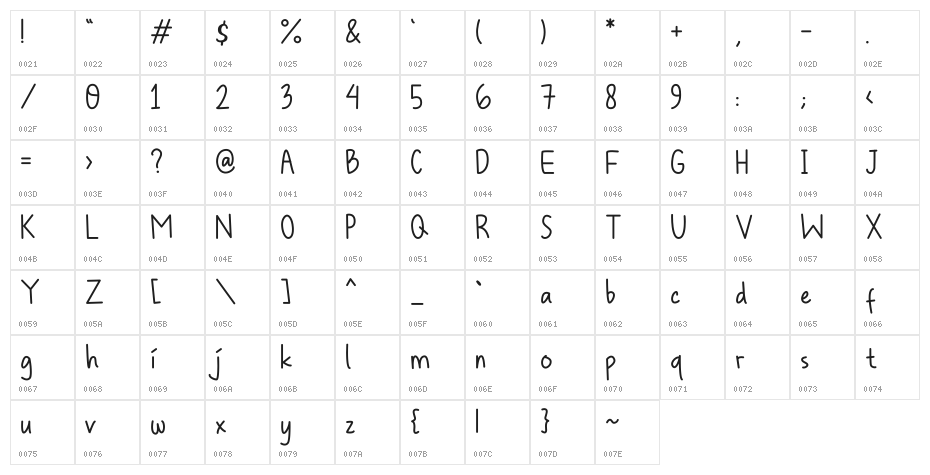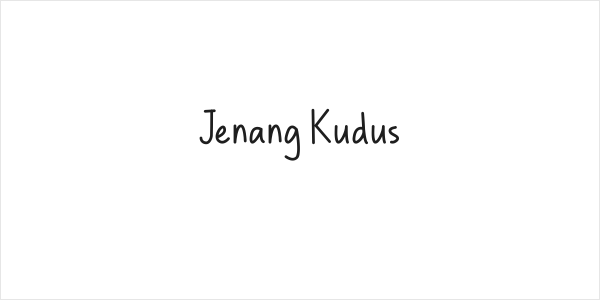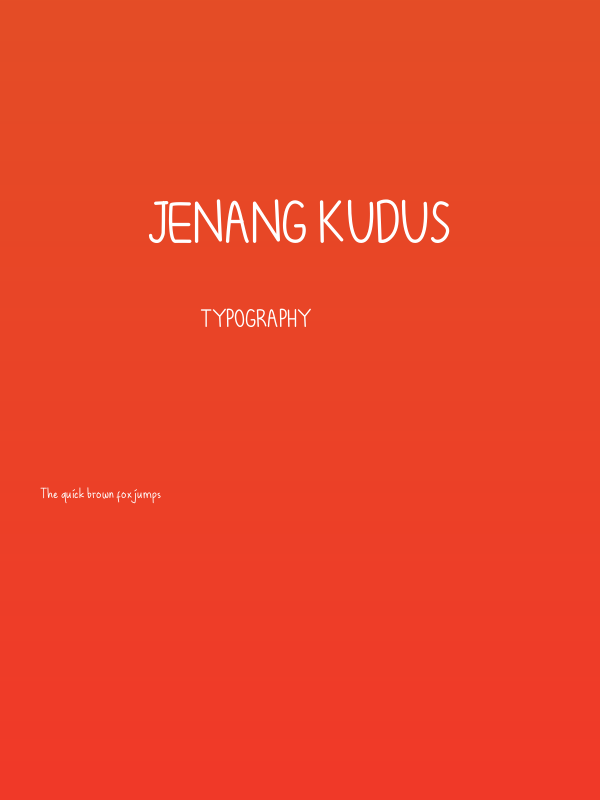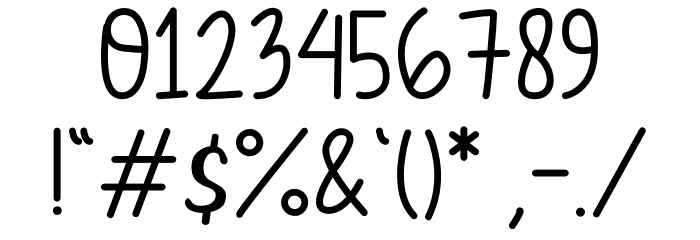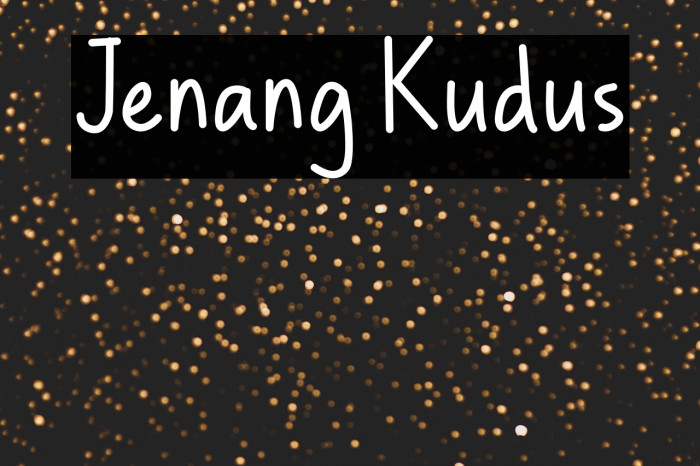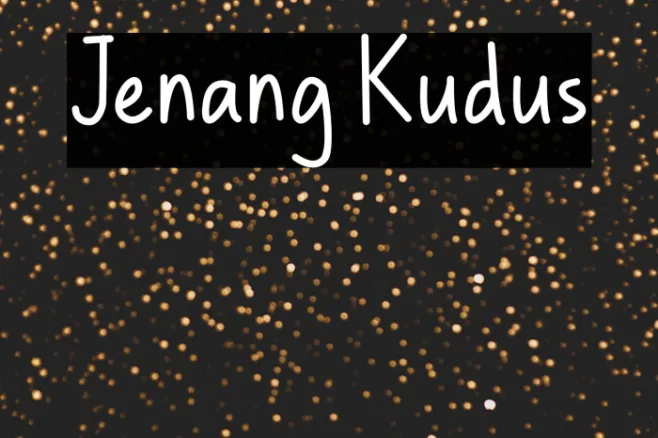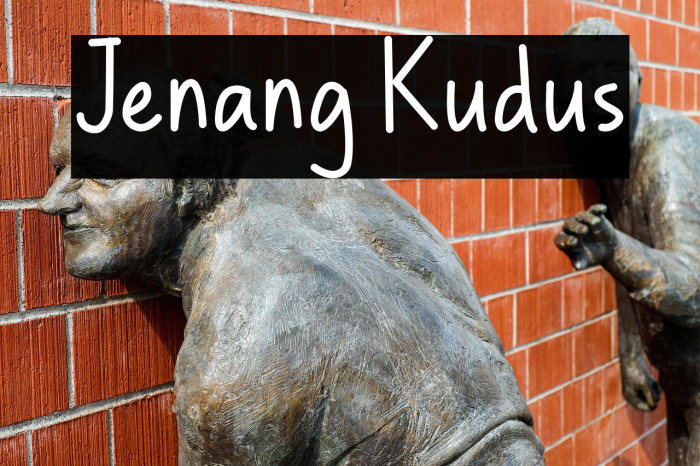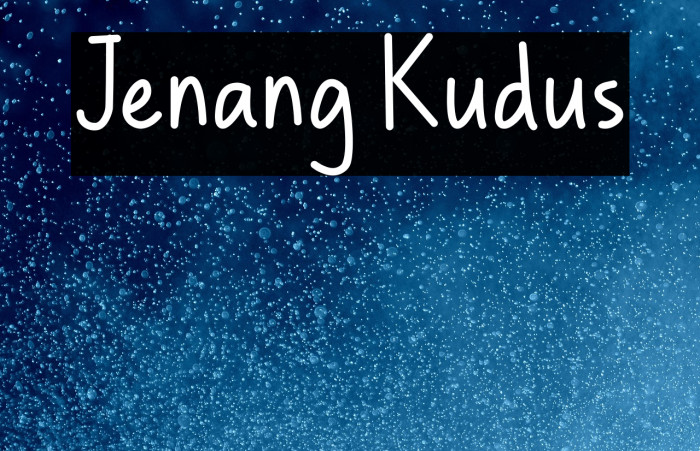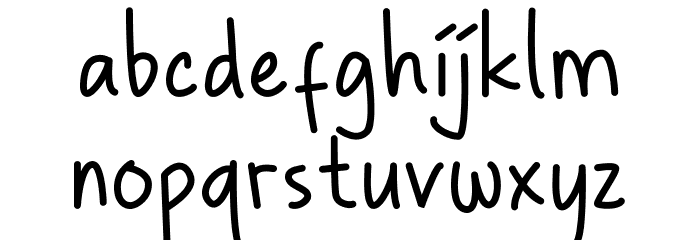
Jenang Kudus Font
Jenang Kudus Description
This font exhibits a playful and informal style, characterized by its handwritten appearance. The letters are slightly irregular, adding a personal and casual touch. The strokes are consistent in width, giving it a uniform look, while the rounded edges soften the overall feel. The uppercase and lowercase letters maintain a cohesive style, with the lowercase letters being slightly smaller and more compact. The numerals and special characters follow the same playful design, making the font versatile for various uses. Its friendly and approachable aesthetic makes it suitable for projects that aim to convey warmth and creativity.